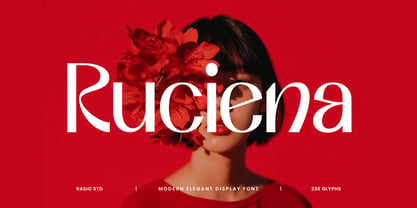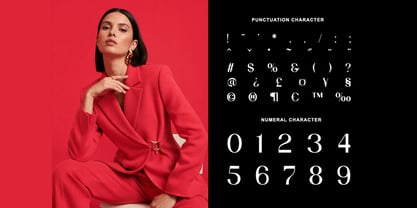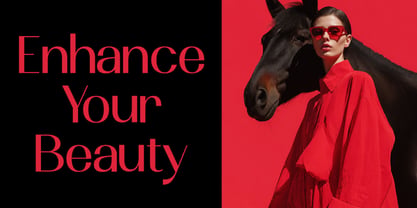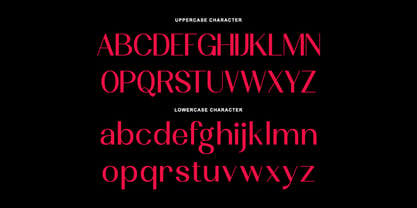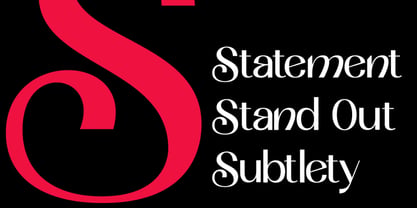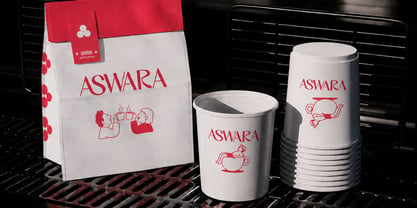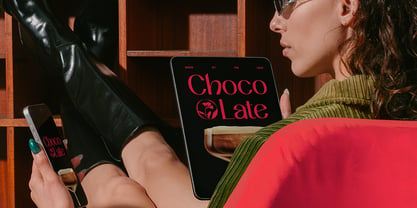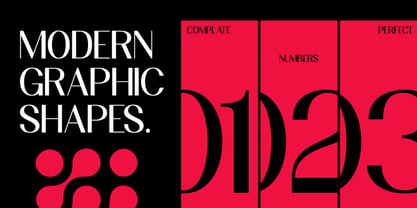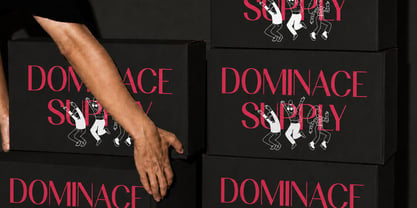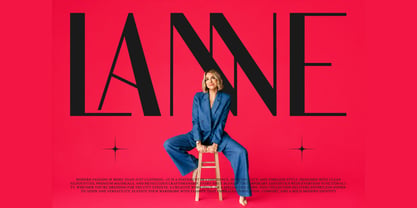
Ruciena
by Rasio Studio
The Ruciena Font Family was designed by Fajar Indra and published by Rasio Studio. Ruciena contains 1 styles. More about this family
Ruciena is a refined high-contrast serif typeface created to deliver graceful sophistication with a contemporary editorial spirit. Combining slender stems, flowing curves, and beautifully balanced proportions, the font presents an elegant visual rhythm that feels luxurious without appearing overly decorative. Carefully sculpted letterforms feature subtle calligraphic influences, distinctive counters, and refined stroke transitions that give every character a graceful personality while maintaining exceptional clarity.
Relevance and Use Case is perfect for premium creative projects that require elegant typography with a refined editorial presence. It is highly suitable for luxury branding, fashion campaigns, cosmetic packaging, jewelry collections, boutique logos, wedding invitations, editorial publications, restaurant identities, hotel branding, social media promotions, premium product launches, lifestyle magazines, and creative advertising where sophisticated typography enhances the overall visual experience.
Designers: Fajar Indra
Foundry: Rasio Studio